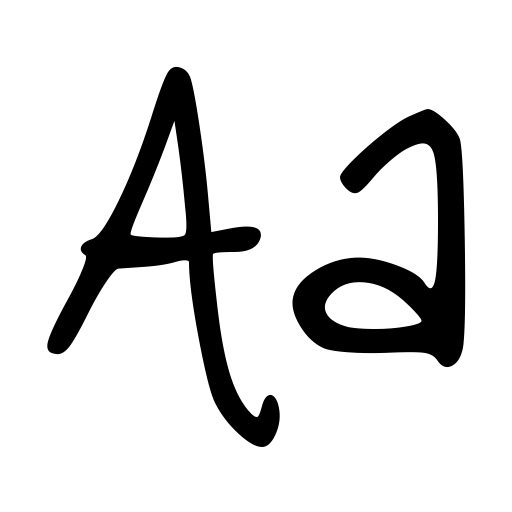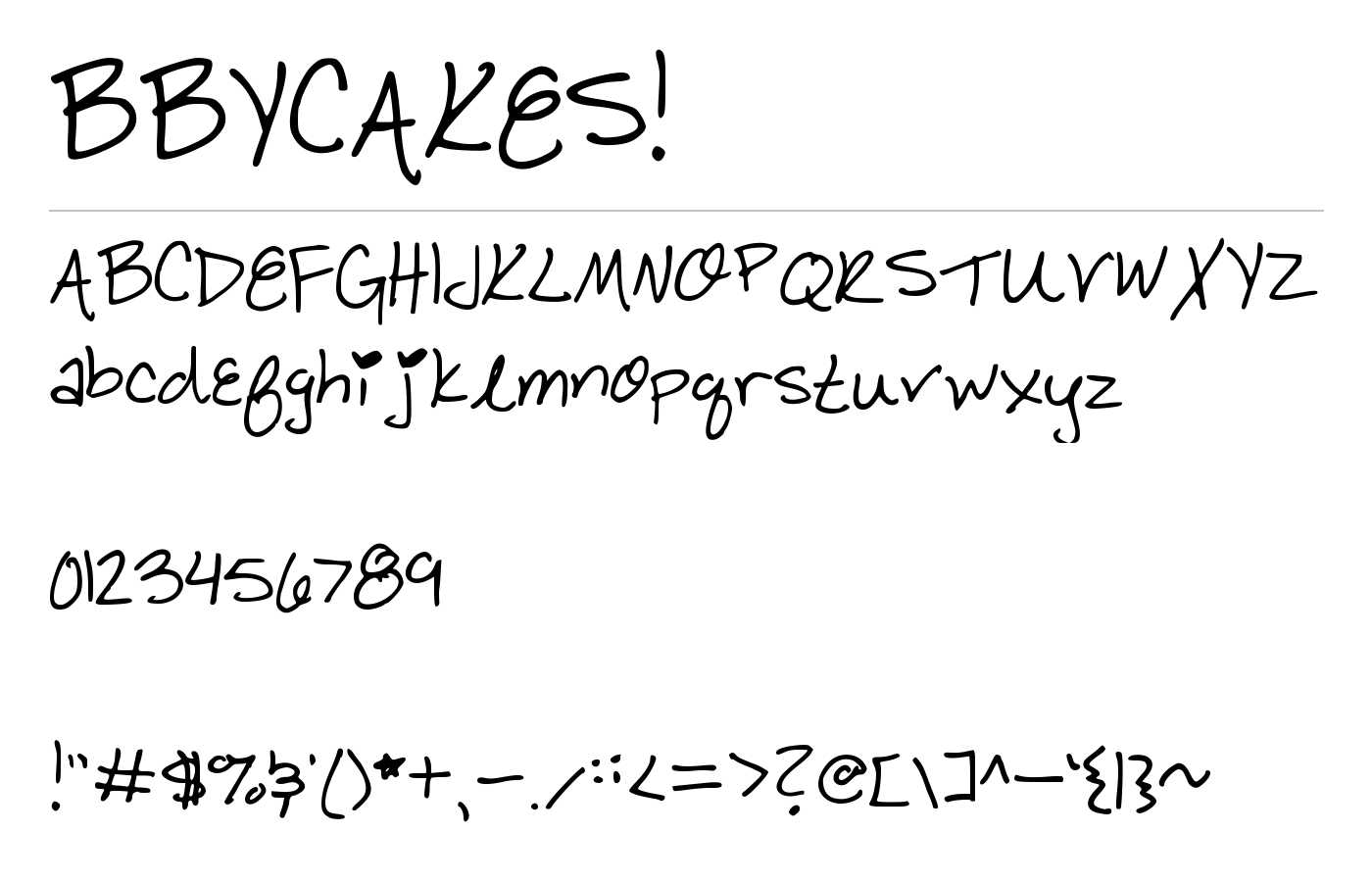
BBYCAKES! is a playful, handwritten sans serif font that exudes a casual, friendly vibe with its irregular stroke widths and lively letterforms. Its tall x-height, quirky details like heart-shaped dots, and slightly uneven lines make it perfect for fun, informal designs such as kids' products, party invitations, or creative branding. This font works best where a personal, approachable feel is desired, adding warmth and character to headlines, logos, and packaging.
BBYCAKES! Font